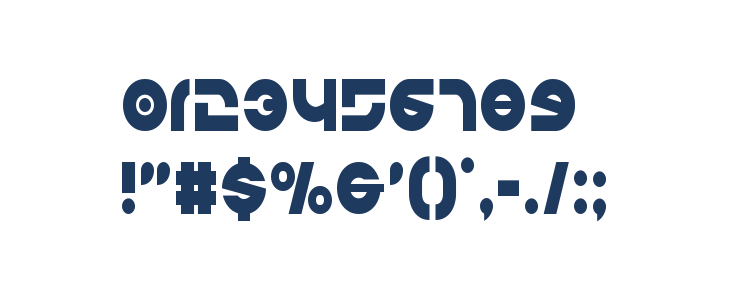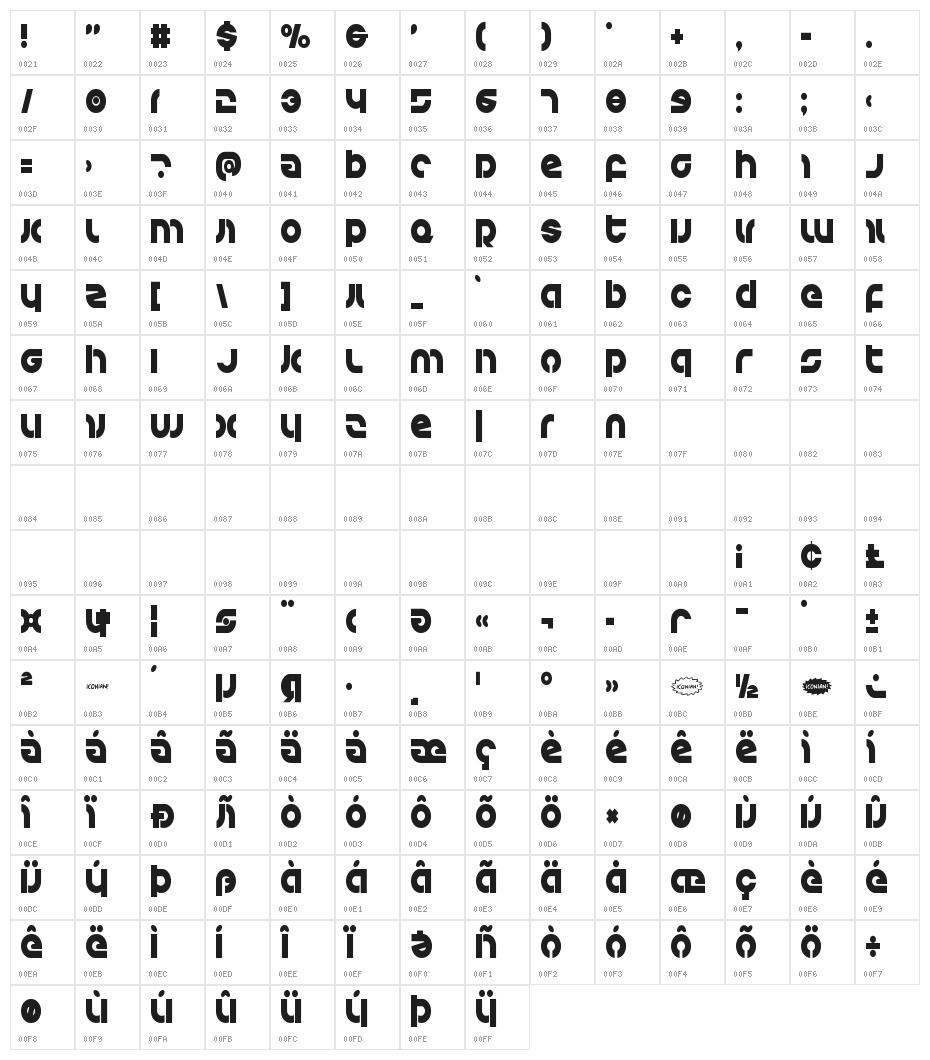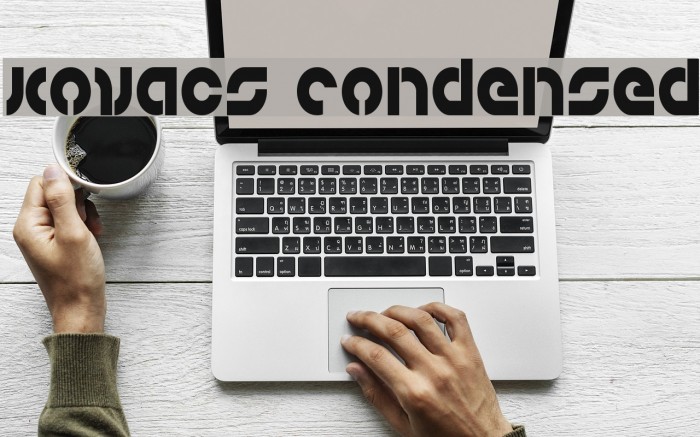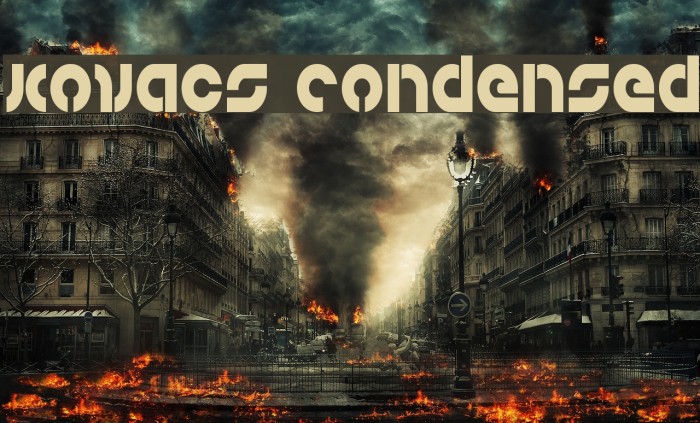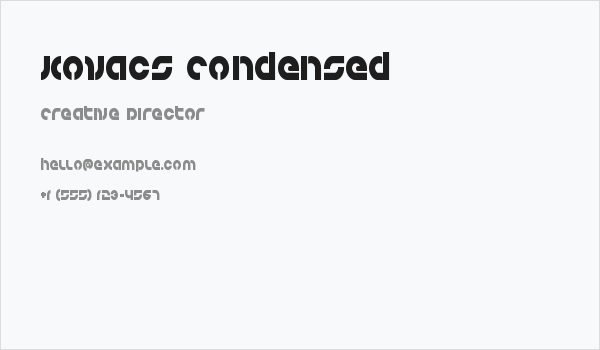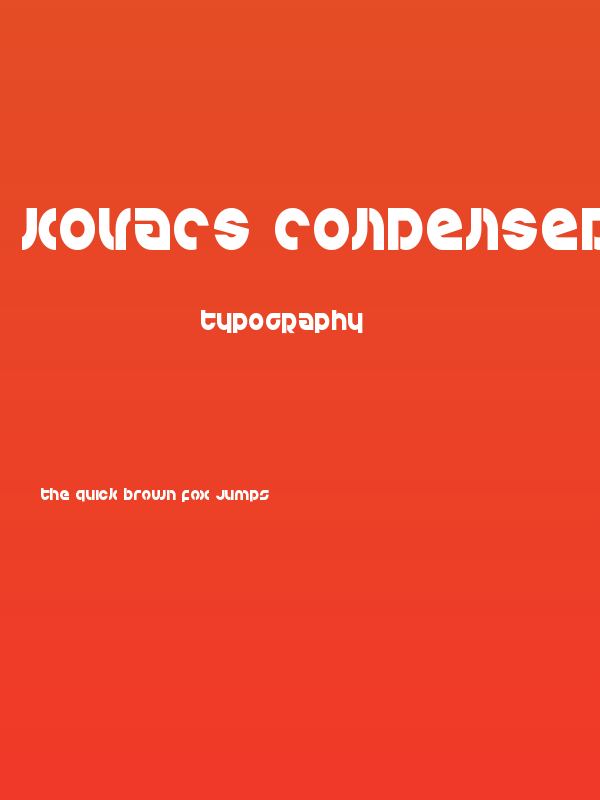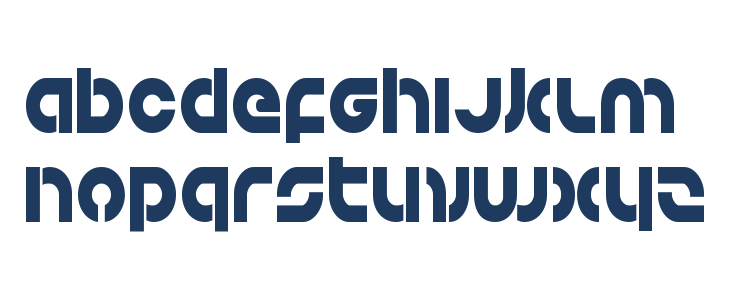
Kovacs Condensed Font
Kovacs Condensed Description
This font features a bold, geometric design with a distinctly modern and futuristic aesthetic. The characters are constructed with thick, uniform strokes and a condensed width, creating a compact and impactful appearance. The design incorporates sharp angles and curves, giving it a unique and edgy look. The uppercase and lowercase letters maintain a consistent style, with the lowercase mirroring the uppercase in form and structure. The numerals and special characters follow the same design principles, ensuring a cohesive visual identity across all elements. This font's boldness and geometric precision make it ideal for projects that require a strong visual statement.